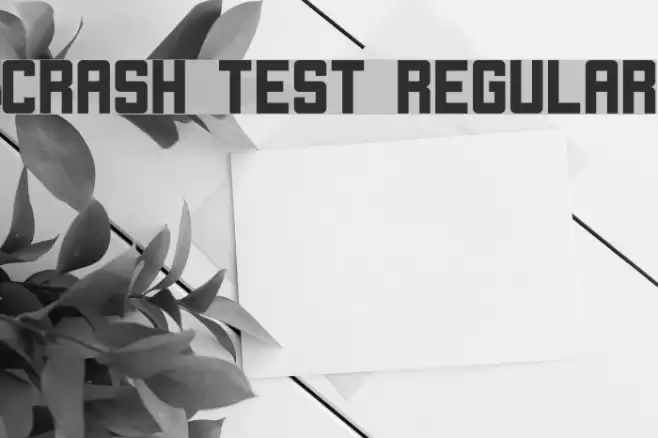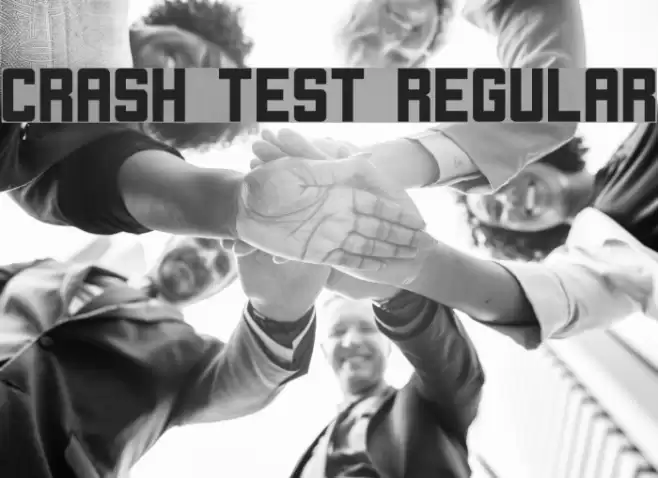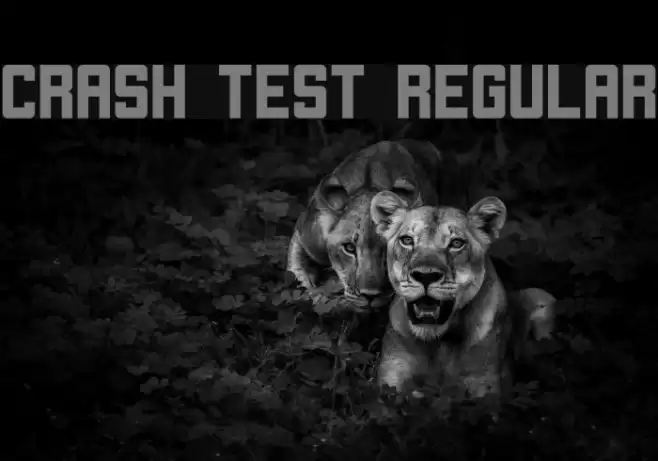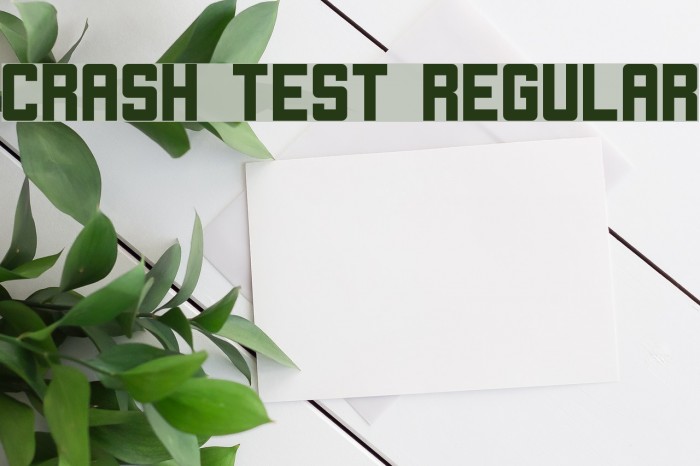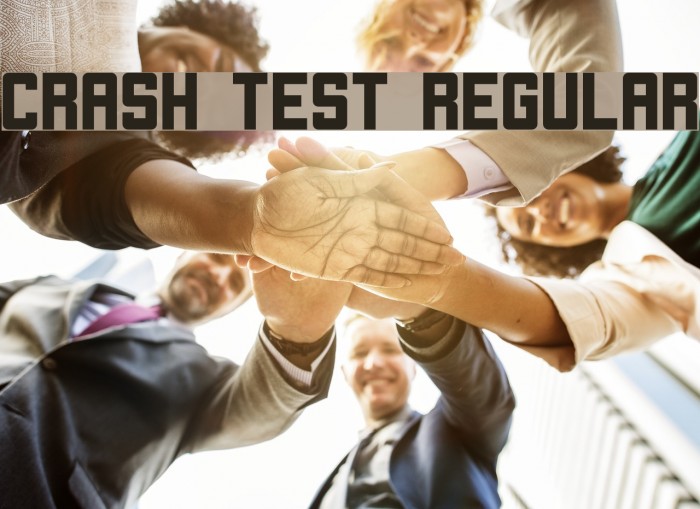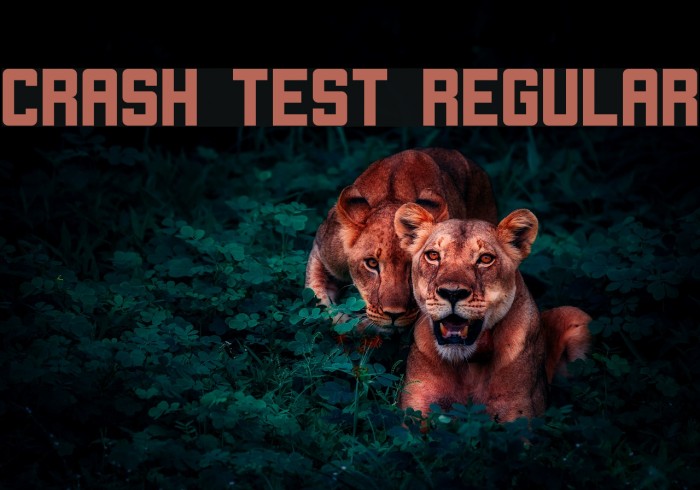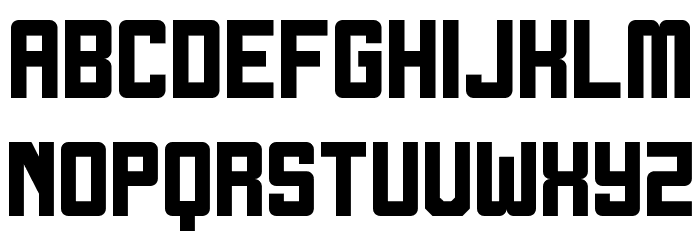
Crash Test Regular Font
Crash Test Regular Description
This font features a bold, geometric design with a strong, industrial feel. The characters are constructed with thick, uniform strokes, creating a sense of solidity and strength. The design is highly angular, with sharp corners and straight lines dominating the letterforms. This gives the font a modern, mechanical appearance, reminiscent of digital or technological themes. The uppercase and lowercase letters maintain a consistent style, ensuring readability while emphasizing the font's robust aesthetic. The numerals and special characters follow the same design principles, making them cohesive with the alphabetic characters.
A bold, geometric font with an industrial, mechanical aesthetic from Uncategorized fonts.
- Proposed Projects: Ideal for technology branding, video game titles, industrial-themed posters, and digital interfaces.